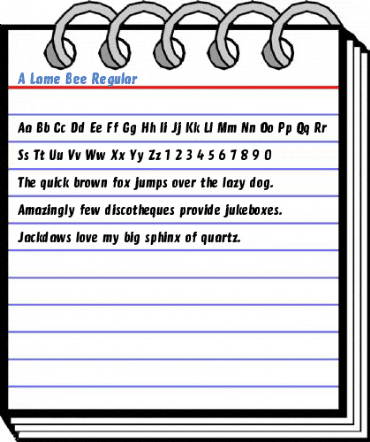
A Lame Bee Regular Font
Copyright: Charlie S. Romeo apologizes to Paul Barnes for creating a lame version of Olembe. I had been trying to find Olembe, did not find one so I made my own using low resolution images from The FontFeed. 'A Lame Bee' is a free font that you can play with for per